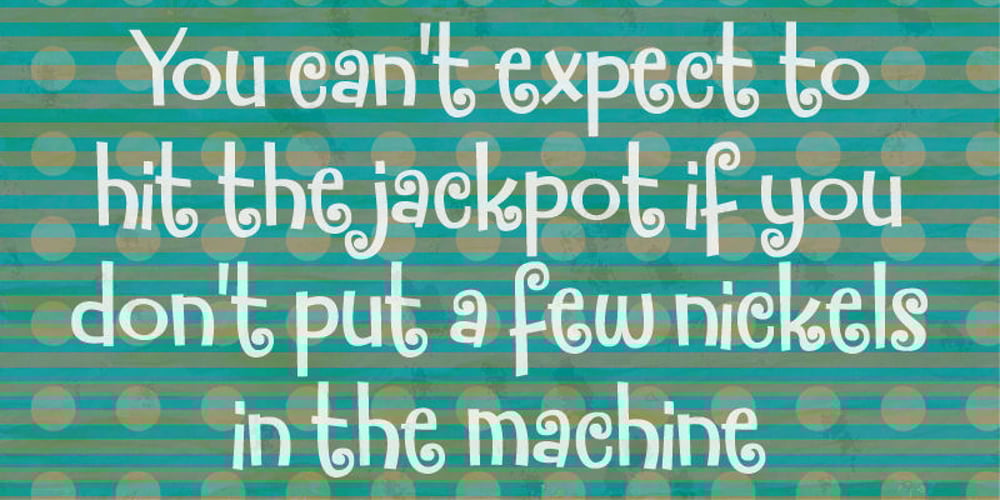
Funky Mother Font Family was designed by Jakob Fischer and published by PizzaDude.dk. Funky Mother contains 1 styles and family package options. Funky Mother is a curly, yet legible font. Full romantic curves!